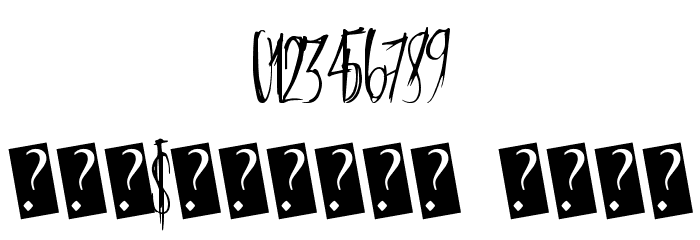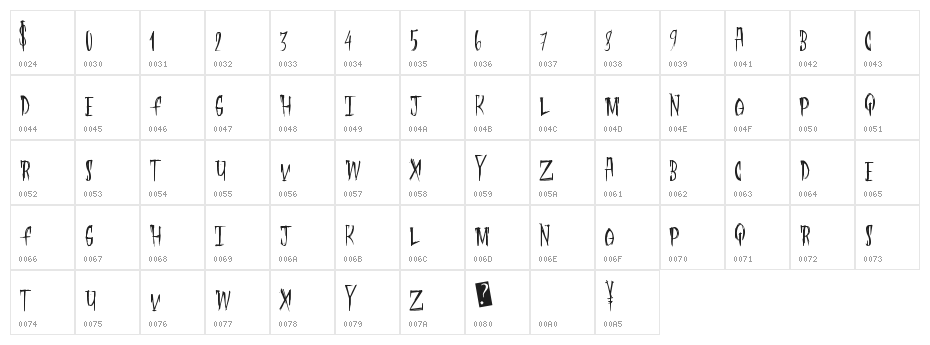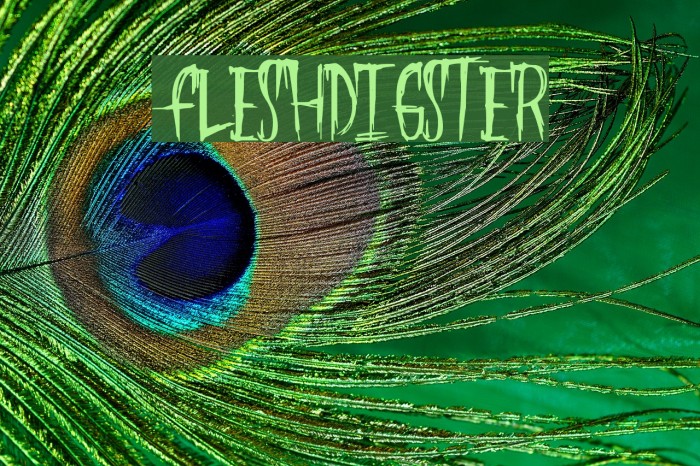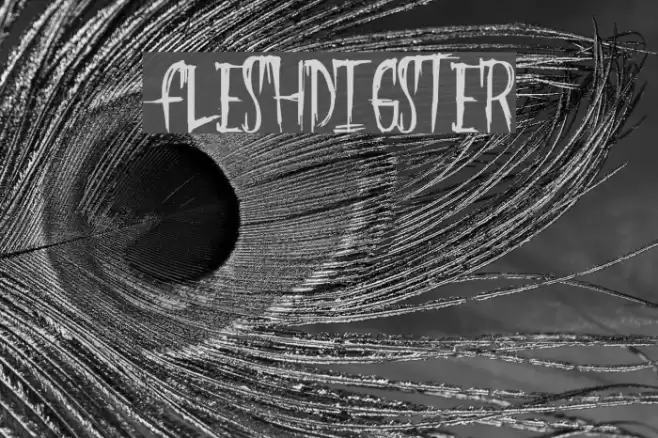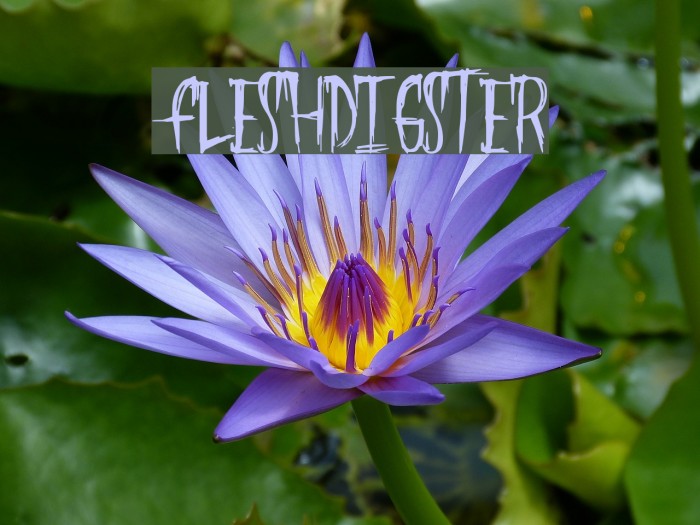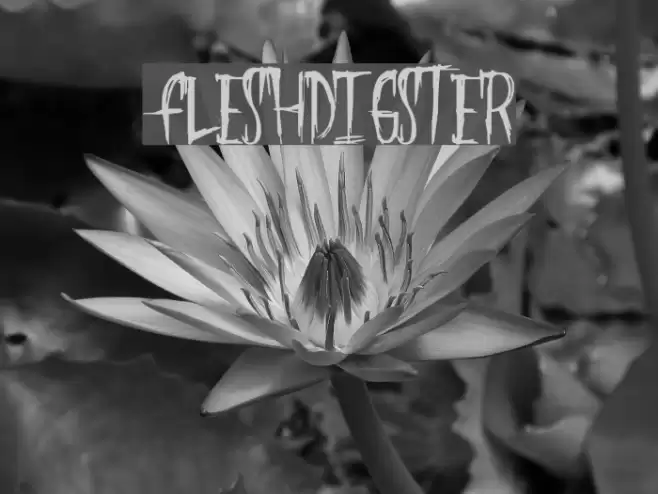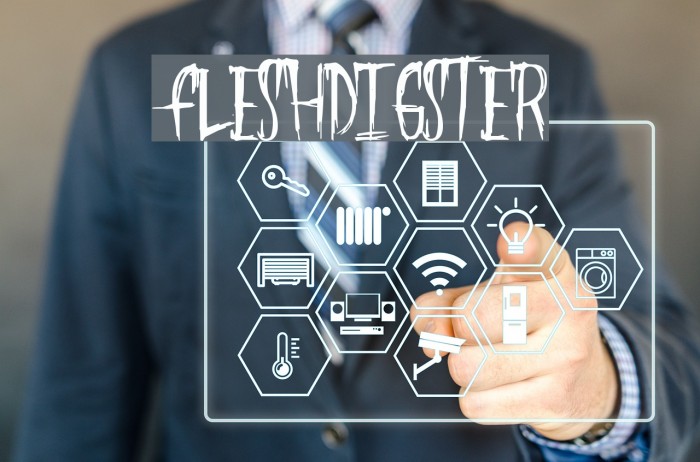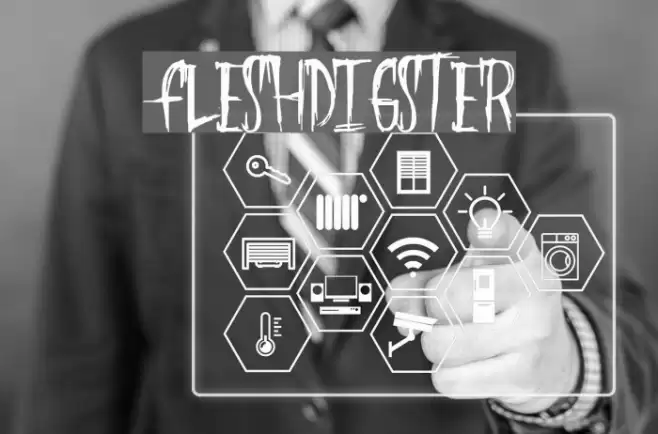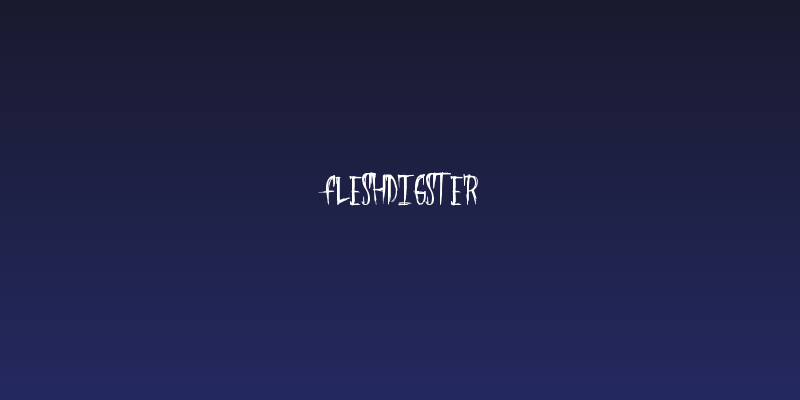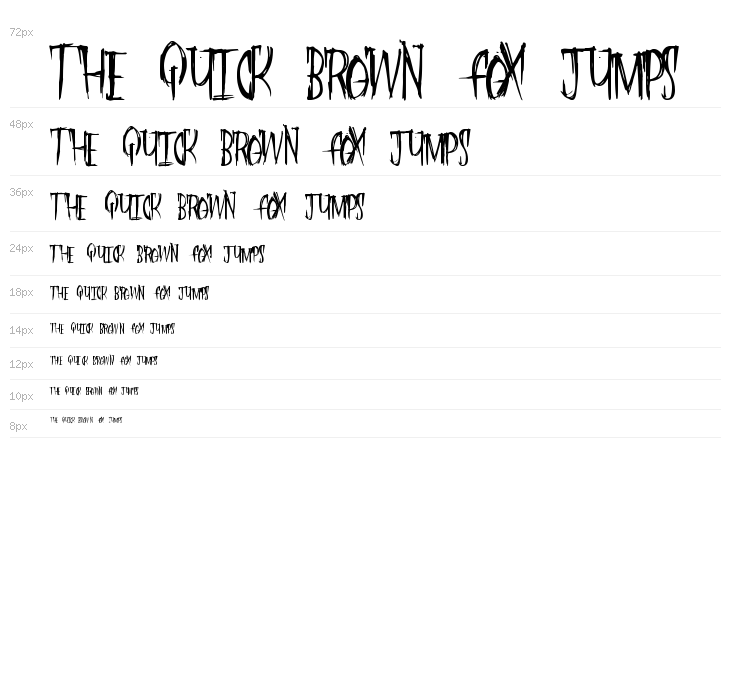
FleshDigster Font
FleshDigster Description
This font features a bold, edgy design with a distressed, grunge aesthetic. The characters are irregular and jagged, giving a sense of movement and energy. The uppercase and lowercase letters maintain a consistent style, with sharp angles and uneven strokes that create a dynamic and chaotic appearance. The numbers follow the same design principles, ensuring uniformity across all characters. Special characters are also included, matching the overall theme with their rugged and unconventional shapes. This font is ideal for projects that require a rebellious or alternative vibe.
Overall StyleGrunge, Edgy, Dynamic